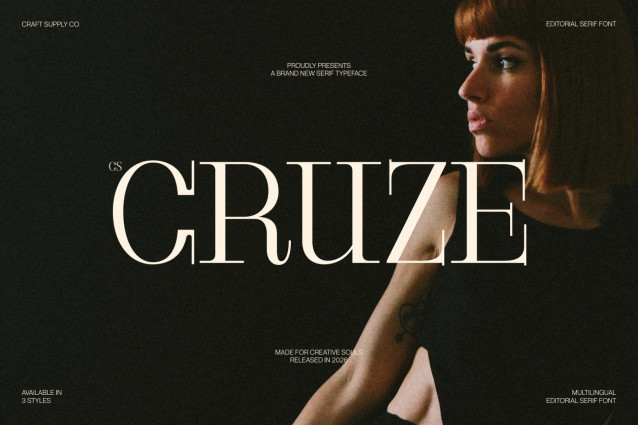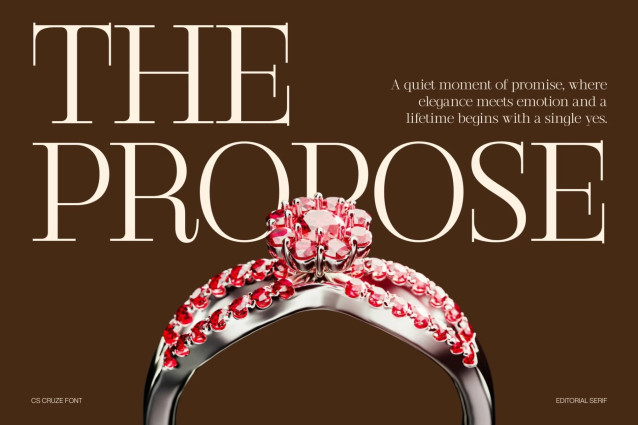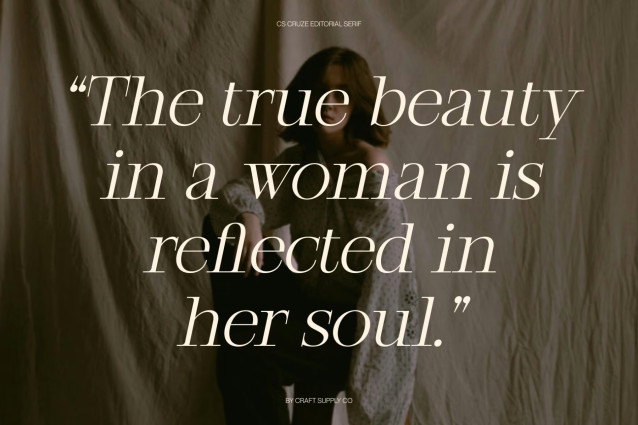
CS Cruze – Editorial Serif Font
CS Cruze – Editorial Serif Font: Where Contemporary Style Meets Timeless Elegance
Long Serif Shapes with Sleek Contemporary Appeal
This is an editorial serif font designed with clean, contemporary shapes and elegant long serif details that create a sleek and refined appearance. Its balanced proportions and graceful structure deliver a stylish visual rhythm, allowing every composition to feel polished, artistic, and sophisticated. The elongated serif forms add a luxurious touch while maintaining modern clarity.
Elegant Design with Editorial Character
This font offers a typographic style that feels both modern and timeless. Its clean construction ensures excellent readability, while its refined details create a high-end editorial atmosphere. The result is a font that communicates elegance, professionalism, and artistic beauty.
Stylish Versatility for Creative Layouts
This font sleek serif structure makes it highly adaptable across both bold headlines and sophisticated body compositions. Its modern elegance enhances visual identities with a classy and polished tone, making it suitable for premium branding and editorial applications alike.